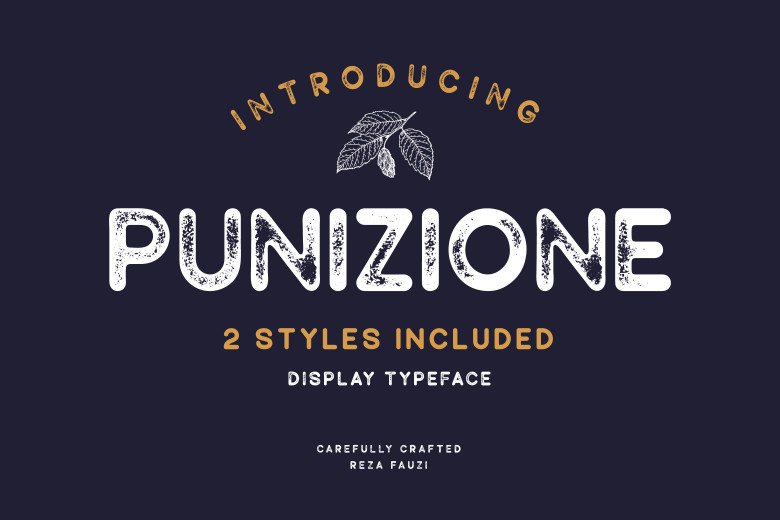
Punizione Font
Introducing Punizione cool and vintage-style display font. Punizione is a cool, vintage-style display font crafted & designed by Grezline Studio. Use it to add that special retro touch to any design idea! Perfect for shirts, scrapbooking, greeting cards, sublimation printing, stickers, cards, embroidery, planners, invites, tumblers, glass cups, and basically anything you can think of!
Punizione Display Font